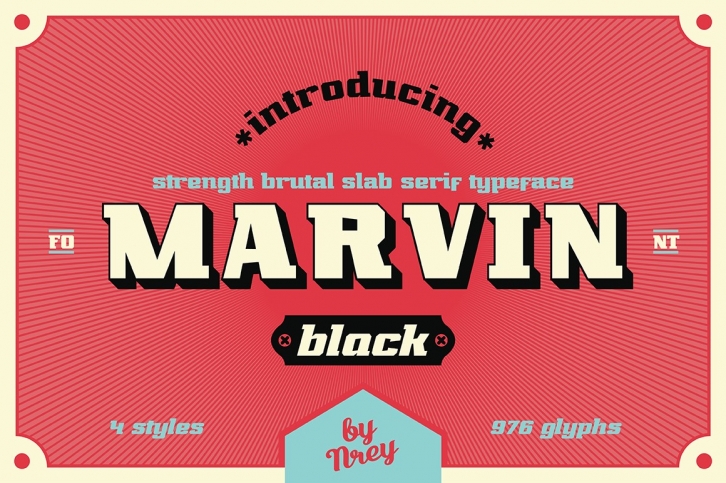
Marvin Black is a beautiful font that was designed by NREY. It's a great choice for designers and creatives who need such a font. It was released on September 18, 2017 and the file size is 7.25 MB. Marvin Black may give a more youthful, expressive and casual look to your project. It is a very beautiful, refined, elegant, and high-quality font.